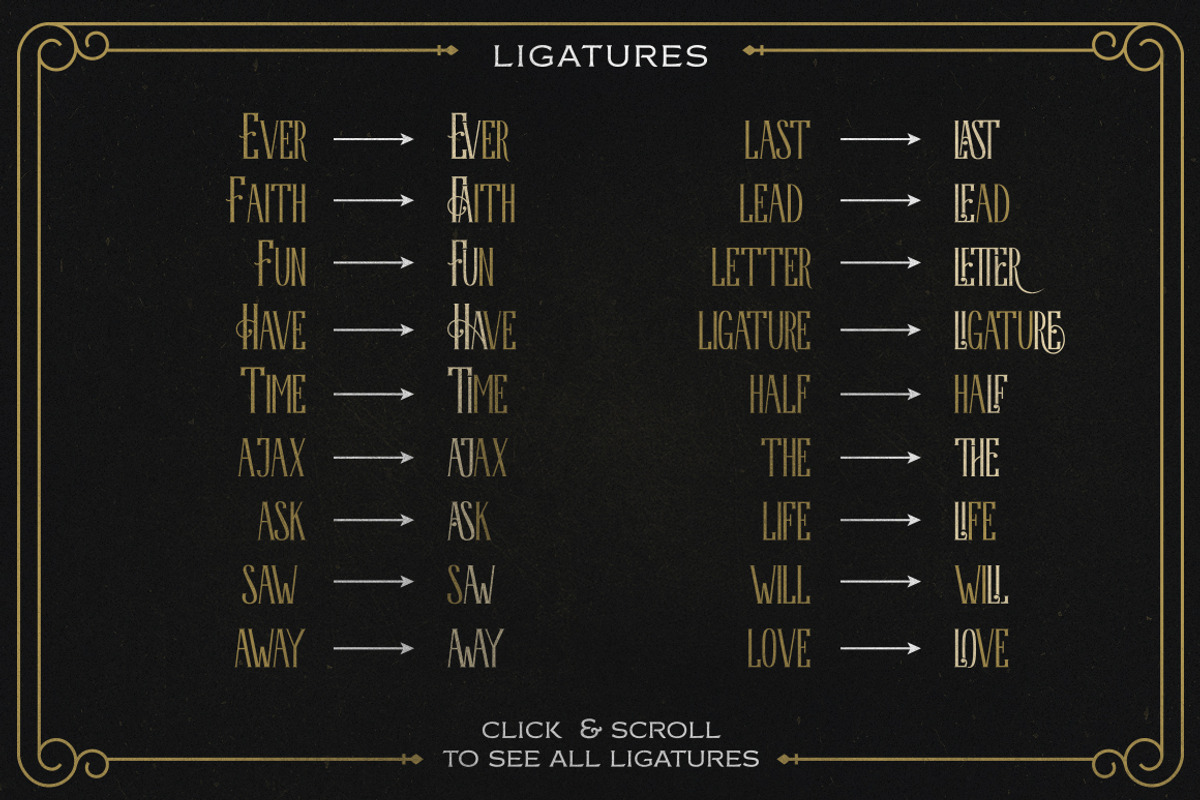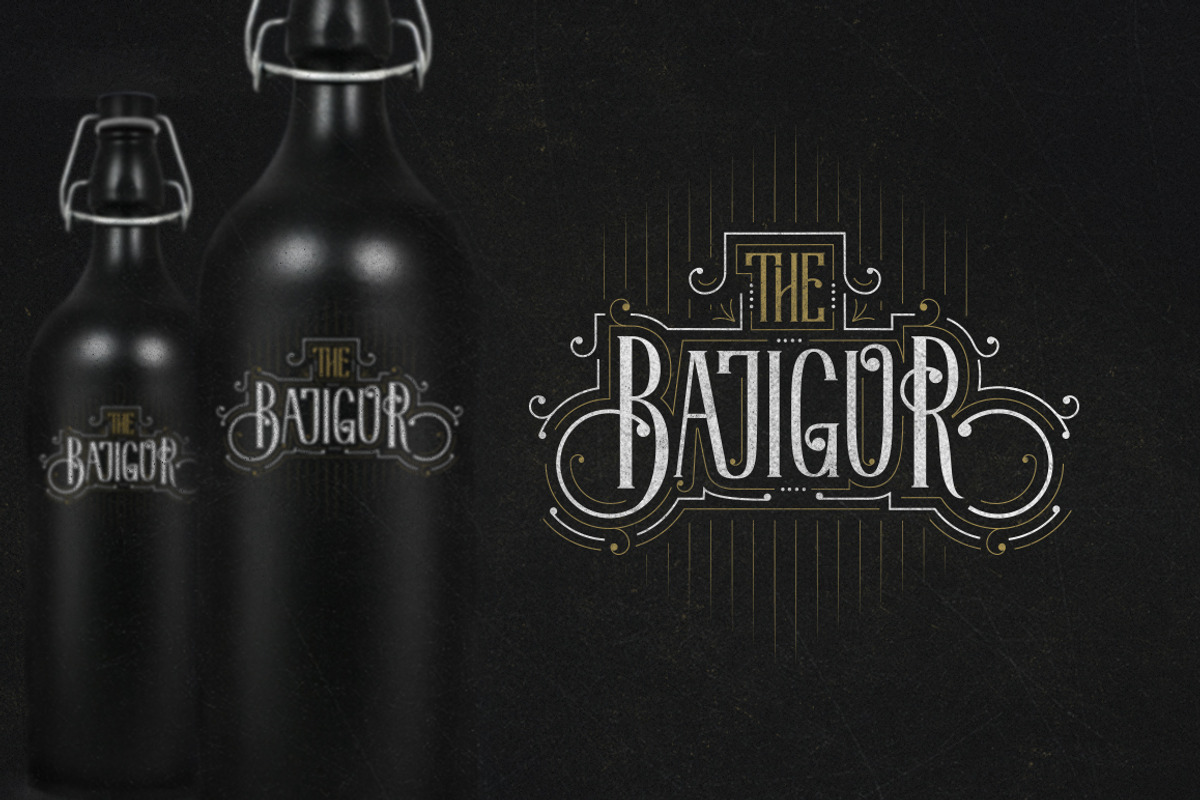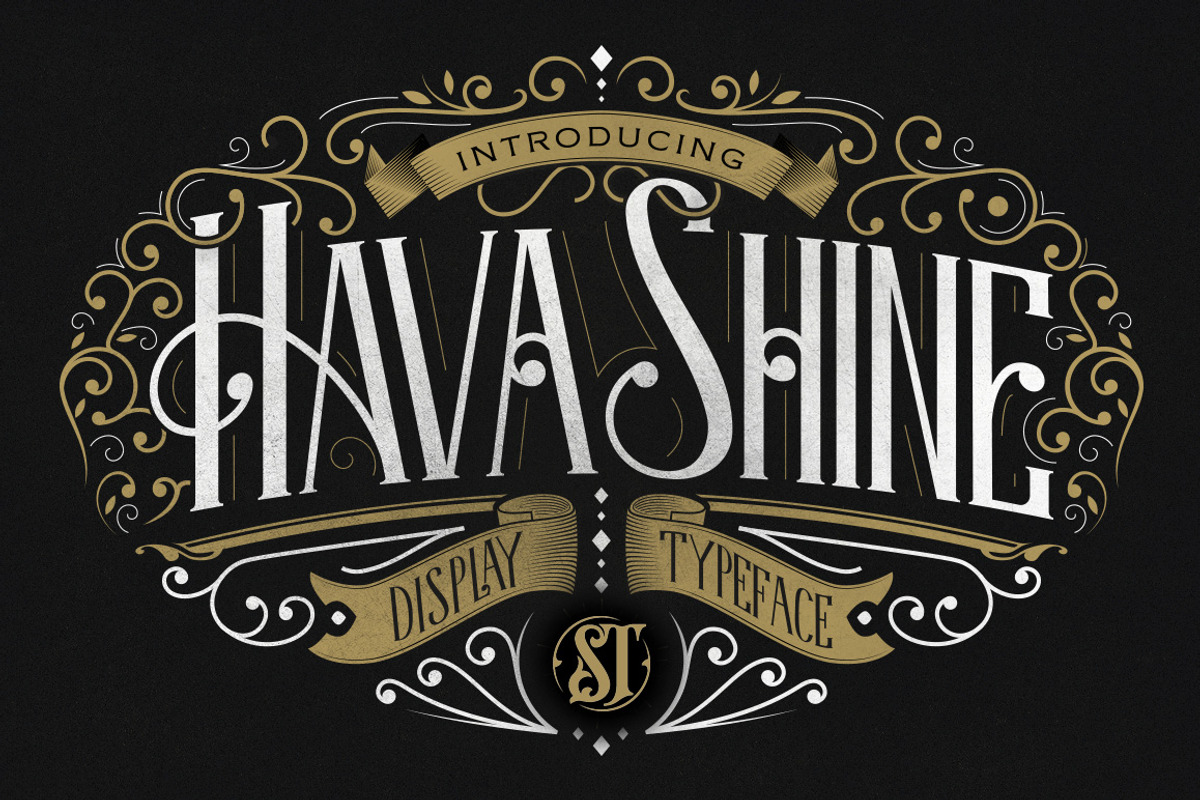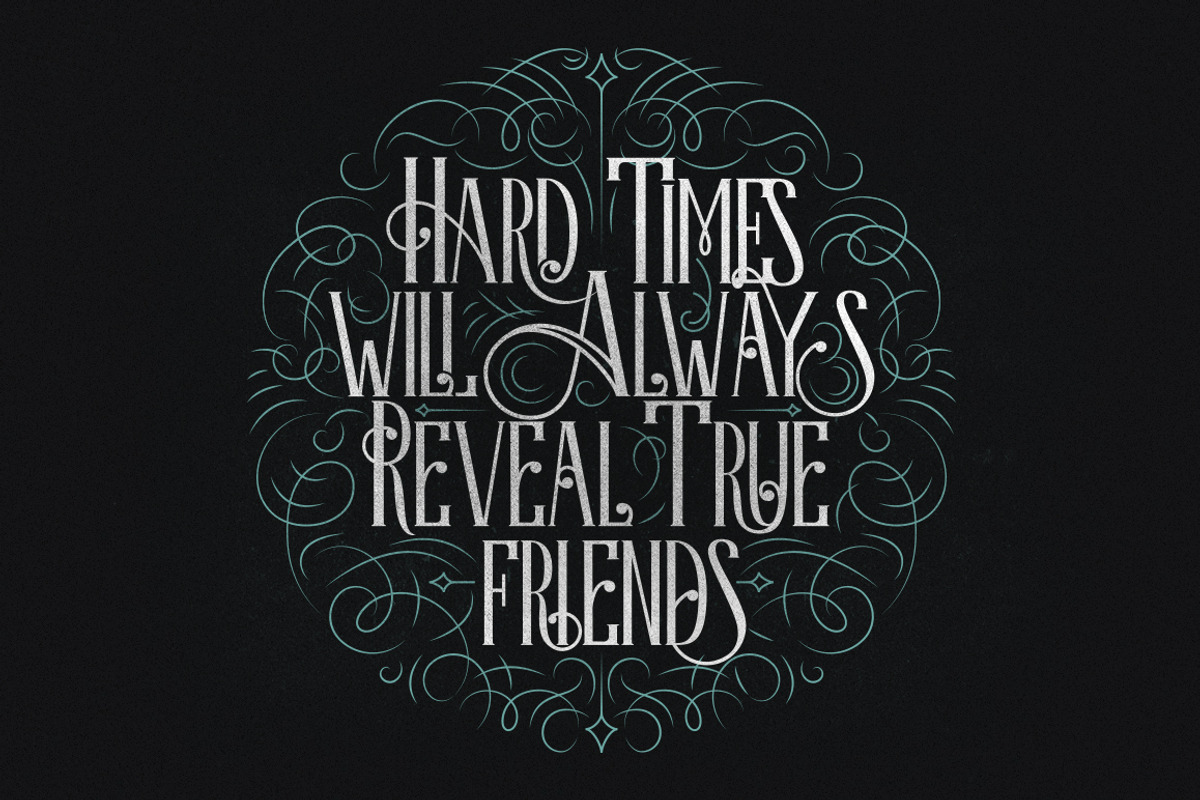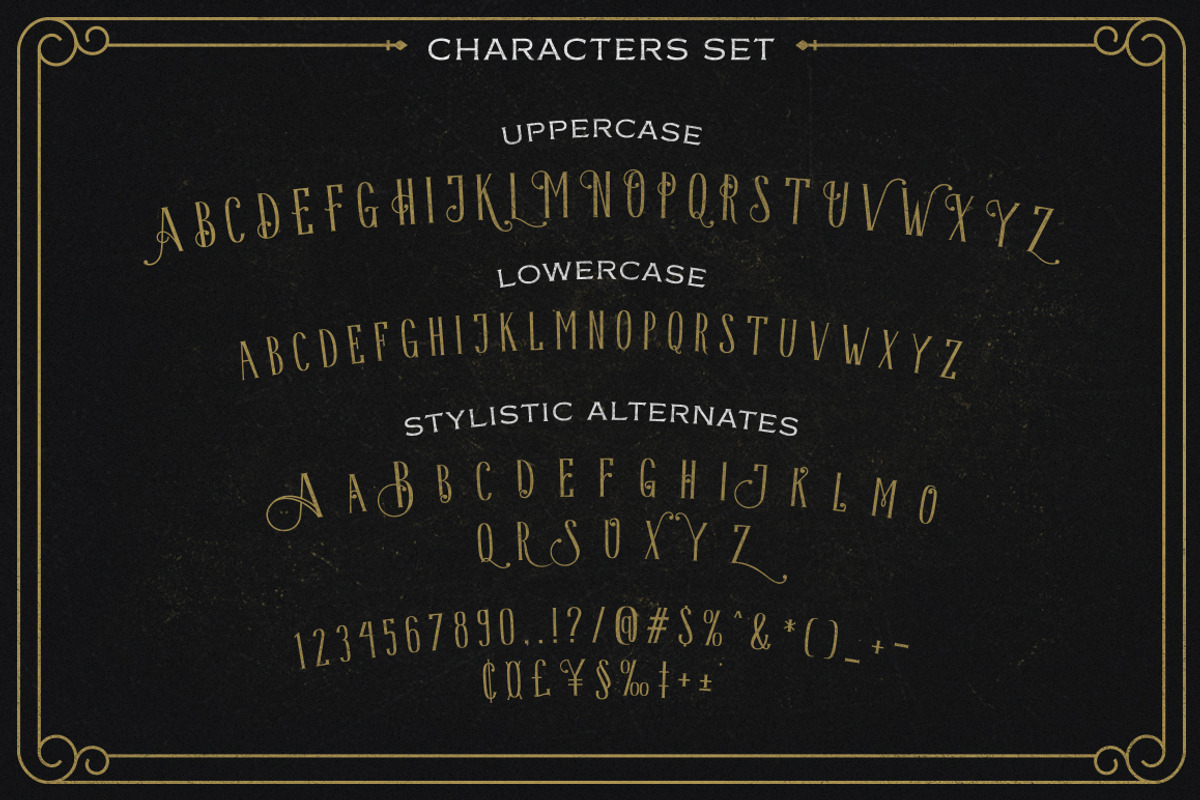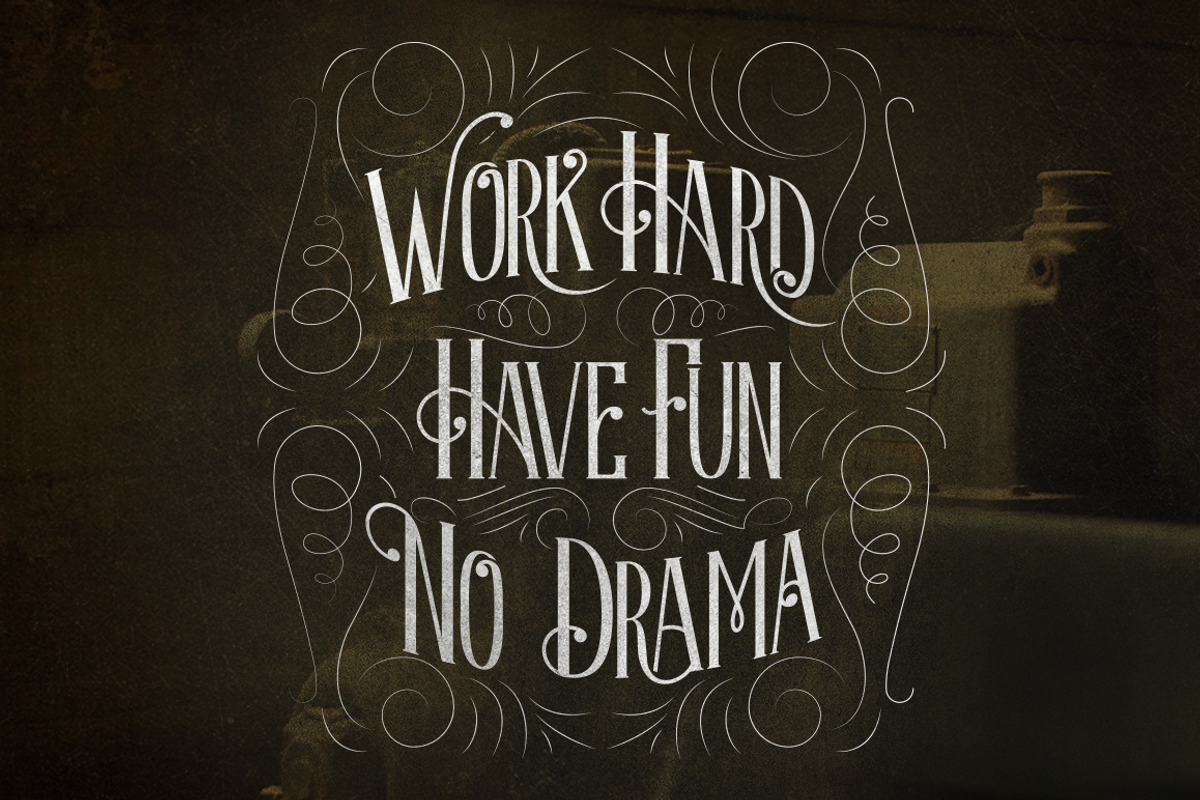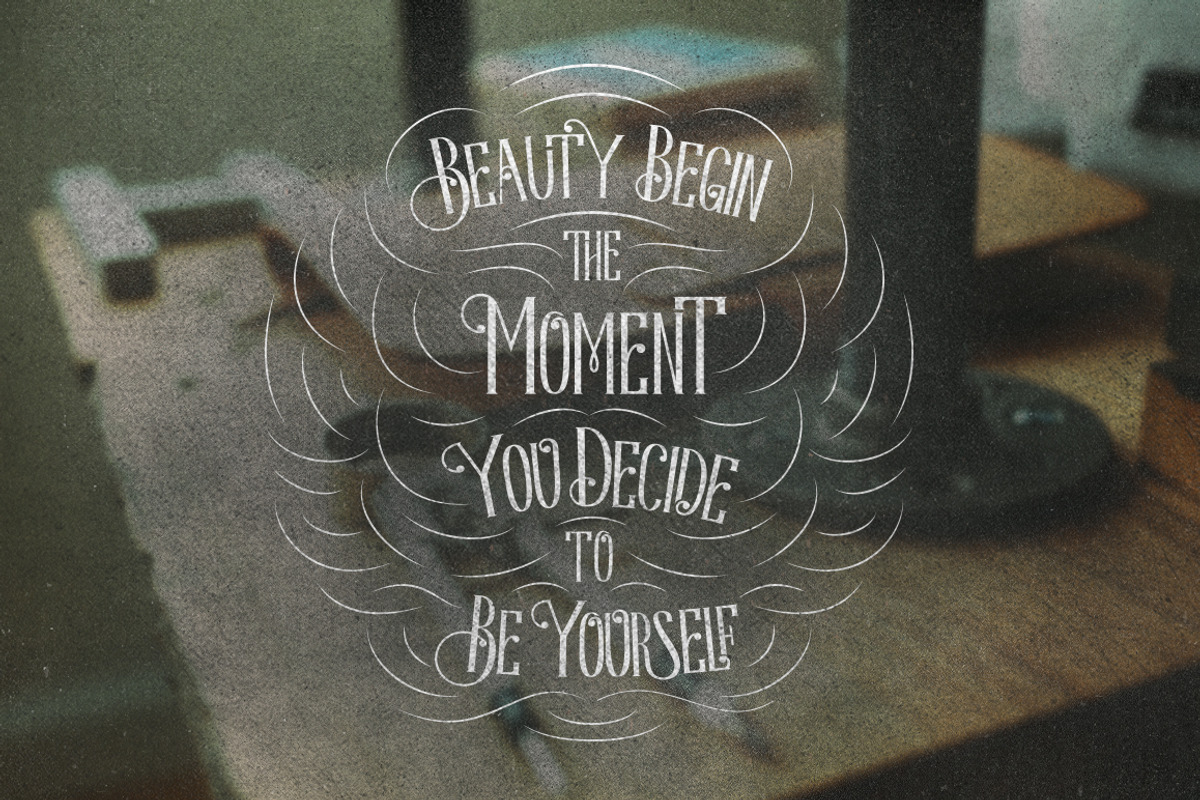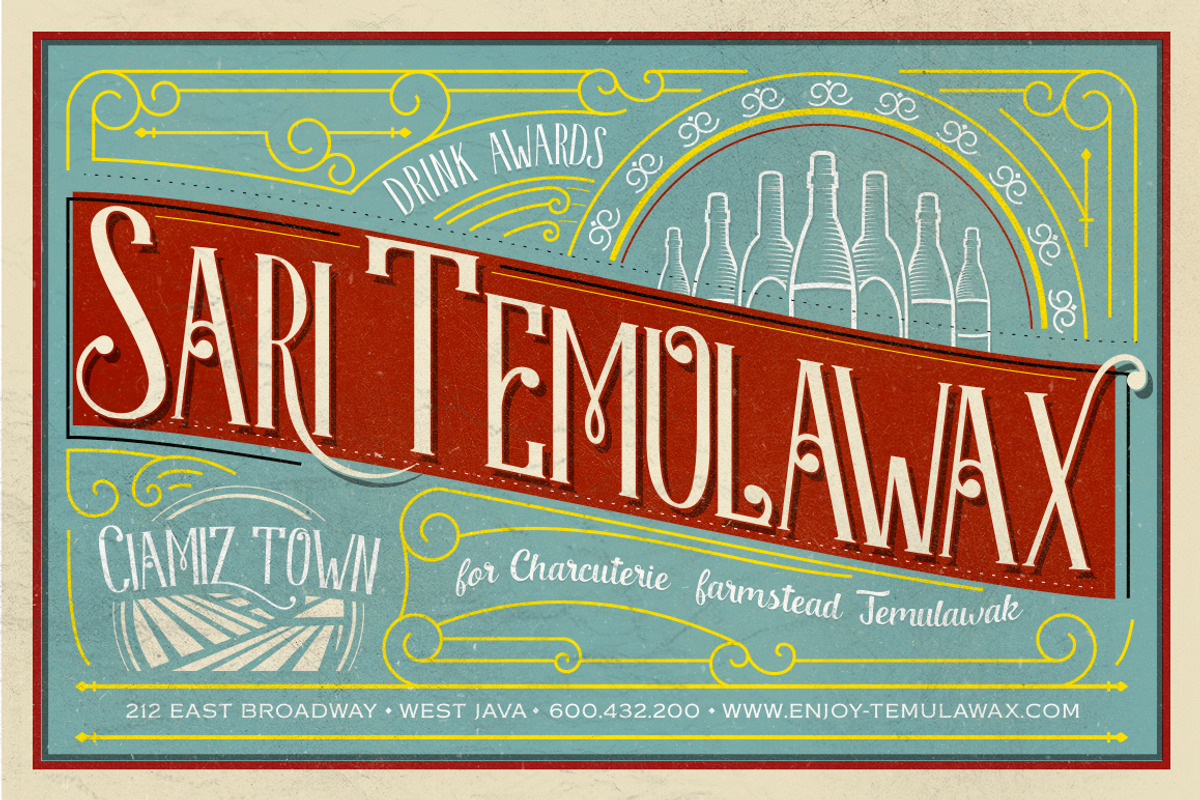
HavaShine Typeface with Extras
HavaShine Typeface with Extras by StoricType is a font selected for branding, posters, packaging, typography.
- Inspired by gaslight combine victorian style with classic style .OpenType features some characters that allows you to mix and match pairs of
Why HavaShine Typeface with Extras is worth a look
HavaShine Typeface with Extras by StoricType fits naturally into Branding, posters, packaging, typography.